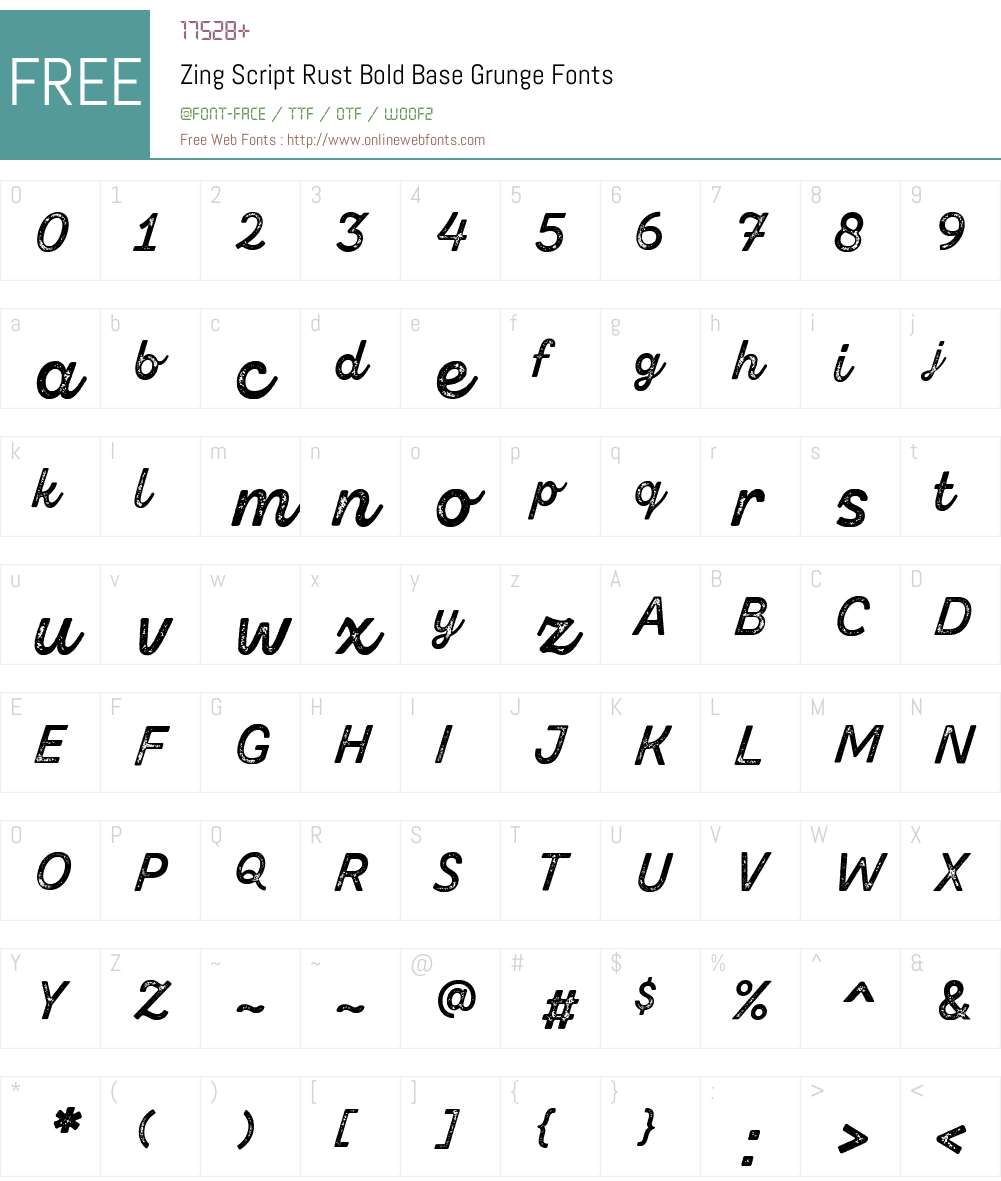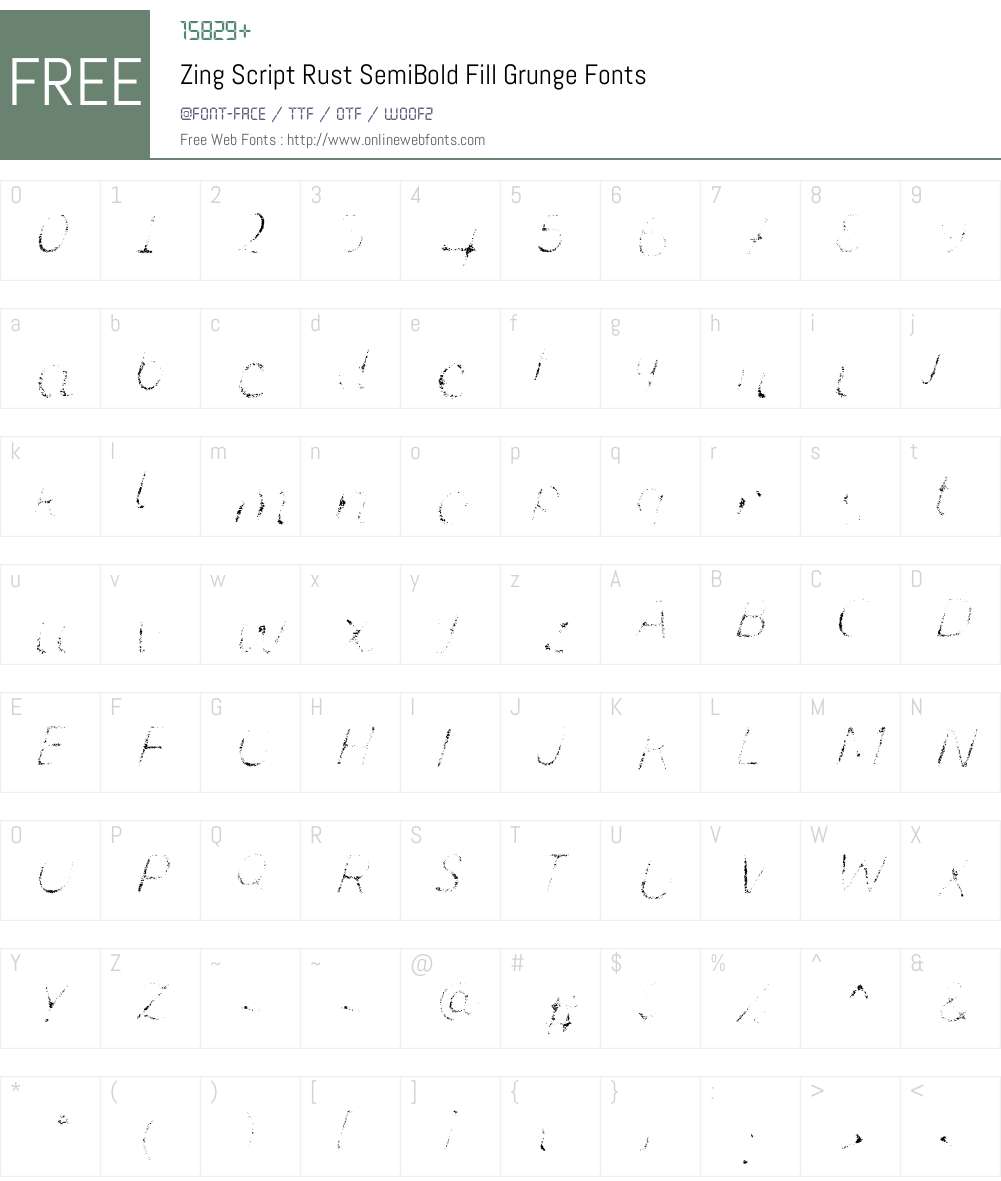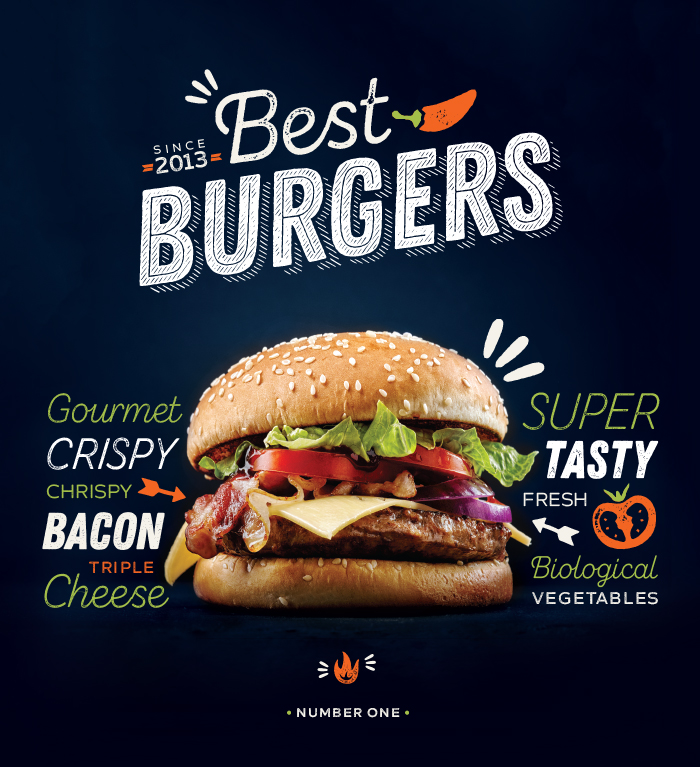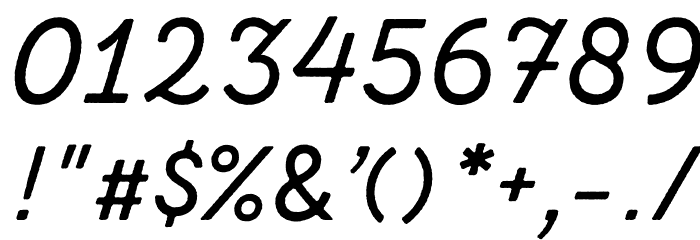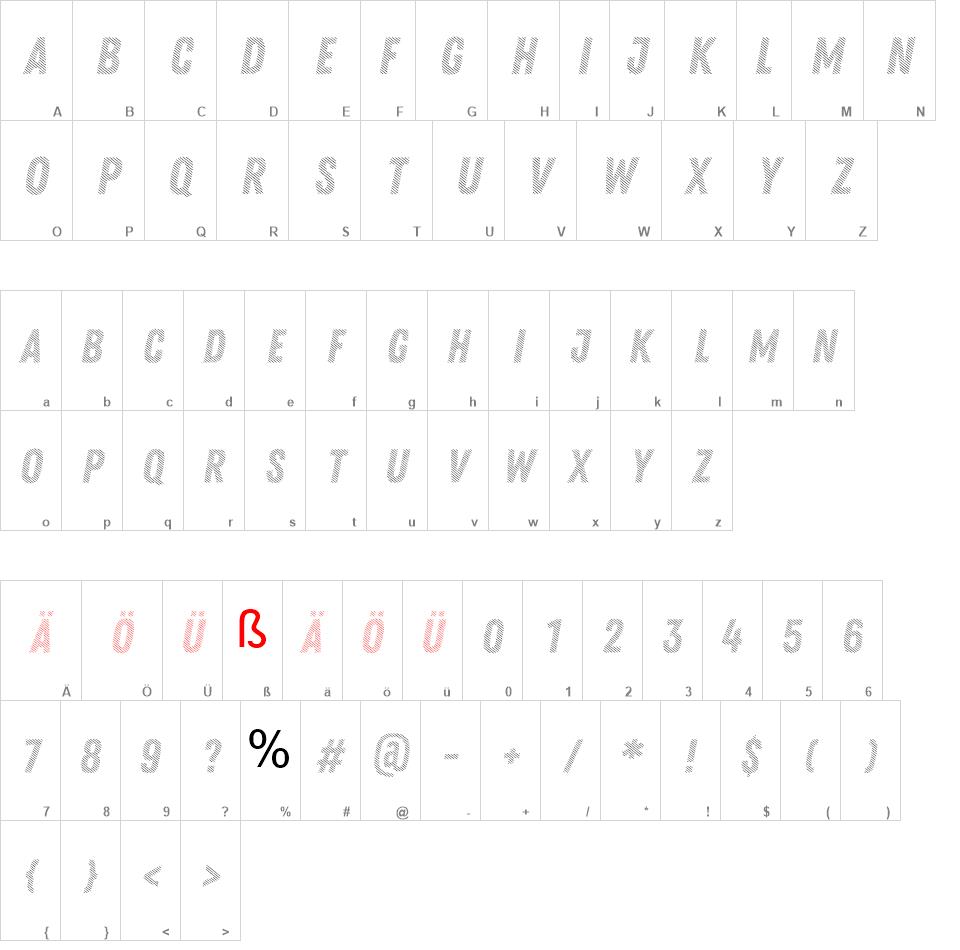
45+ Zing Script Rust Font Free PNG. We're giving away 6 zing rust™ fonts for free! October 9, 2019 by editorial leave a comment. Zing rust, zing script rust, zing sans rust and zing goodies rust. Full zing rust™ font family includes a whopping handmade 521 fonts! Zing rust free for personal use. Zing rust™, zing script rust™, zing sans rust™. For full version and commercial purposes. Zing script rust r base g. As its name refers zing rust stands for the. Zing rust and zing script rust having fully functional opentype features and contextual alternates. Zing script rust™ multiple layers of rust™. 100% zing rust—521 fonts in a bundle! Base, script & sans + textures! As its name implies, zing rust™ adds vital freshness and bold flavor to your ideas. Grab them now or get the whole zing rust™ bundle!
Zing Rust Font Family Befonts Com. Full zing rust™ font family includes a whopping handmade 521 fonts! Zing rust™, zing script rust™, zing sans rust™. Zing rust and zing script rust having fully functional opentype features and contextual alternates. Zing script rust r base g. Base, script & sans + textures! Grab them now or get the whole zing rust™ bundle! Zing script rust™ multiple layers of rust™. As its name refers zing rust stands for the. Zing rust, zing script rust, zing sans rust and zing goodies rust. Zing rust free for personal use. For full version and commercial purposes. 100% zing rust—521 fonts in a bundle! We're giving away 6 zing rust™ fonts for free! October 9, 2019 by editorial leave a comment. As its name implies, zing rust™ adds vital freshness and bold flavor to your ideas.
The different fonts have different weights, giving you a definitive tool for your imagination. Zing rust free font family is a huge package of outstandingly handmade 521 fonts. The editorial at dafont search for the best free fonts available to download from the web. Introducing zing rust font collection. October 9, 2019 by editorial leave a comment. Grab them now or get the whole zing rust™ bundle! Similar free fonts for zing script rust regular base.
Zing Script Rust Bold Base Grunge 1 000 Ps 001 000 Hotconv 1 0 88 Makeotf Lib2 5 64775 Fonts Free Download Onlinewebfonts Com. We're giving away 6 zing rust™ fonts for free! Zing script rust™ multiple layers of rust™. Full zing rust™ font family includes a whopping handmade 521 fonts! Zing rust™, zing script rust™, zing sans rust™. Zing script rust r base g. October 9, 2019 by editorial leave a comment. For full version and commercial purposes. Zing rust free for personal use. As its name refers zing rust stands for the. Base, script & sans + textures! 100% zing rust—521 fonts in a bundle! Zing rust and zing script rust having fully functional opentype features and contextual alternates. As its name implies, zing rust™ adds vital freshness and bold flavor to your ideas. Zing rust, zing script rust, zing sans rust and zing goodies rust. Grab them now or get the whole zing rust™ bundle!
Zing rust and zing script rust having fully functional opentype features and contextual alternates.
Download Free Zing Rust Demo Base Font Dafontfree Net. As its name refers zing rust stands for the. Zing script rust r base g. For full version and commercial purposes. Zing rust™, zing script rust™, zing sans rust™. Base, script & sans + textures! Full zing rust™ font family includes a whopping handmade 521 fonts! As its name implies, zing rust™ adds vital freshness and bold flavor to your ideas. Zing rust free for personal use. We're giving away 6 zing rust™ fonts for free! Grab them now or get the whole zing rust™ bundle! Zing rust, zing script rust, zing sans rust and zing goodies rust. Zing script rust™ multiple layers of rust™. 100% zing rust—521 fonts in a bundle! October 9, 2019 by editorial leave a comment. Zing rust and zing script rust having fully functional opentype features and contextual alternates.
Download Zing Rust By Fontfabric. We're giving away 6 zing rust™ fonts for free! As its name implies, zing rust™ adds vital freshness and bold flavor to your ideas. For full version and commercial purposes. October 9, 2019 by editorial leave a comment. Zing rust and zing script rust having fully functional opentype features and contextual alternates. Zing script rust r base g. Zing script rust™ multiple layers of rust™. 100% zing rust—521 fonts in a bundle! Grab them now or get the whole zing rust™ bundle! Zing rust™, zing script rust™, zing sans rust™. Full zing rust™ font family includes a whopping handmade 521 fonts! As its name refers zing rust stands for the. Zing rust free for personal use. Zing rust, zing script rust, zing sans rust and zing goodies rust. Base, script & sans + textures!
Zing Rust Font Family Dafont Free. Full zing rust™ font family includes a whopping handmade 521 fonts! Zing script rust r base g. Grab them now or get the whole zing rust™ bundle! 100% zing rust—521 fonts in a bundle! We're giving away 6 zing rust™ fonts for free! October 9, 2019 by editorial leave a comment. Zing rust™, zing script rust™, zing sans rust™. For full version and commercial purposes. Base, script & sans + textures! Zing rust and zing script rust having fully functional opentype features and contextual alternates. Zing rust, zing script rust, zing sans rust and zing goodies rust. Zing rust free for personal use. Zing script rust™ multiple layers of rust™. As its name implies, zing rust™ adds vital freshness and bold flavor to your ideas. As its name refers zing rust stands for the.
Download Zing Rust By Fontfabric. Zing rust and zing script rust having fully functional opentype features and contextual alternates. October 9, 2019 by editorial leave a comment. Zing script rust™ multiple layers of rust™. Zing rust, zing script rust, zing sans rust and zing goodies rust. 100% zing rust—521 fonts in a bundle! Full zing rust™ font family includes a whopping handmade 521 fonts! As its name refers zing rust stands for the. Zing script rust r base g. We're giving away 6 zing rust™ fonts for free! For full version and commercial purposes. Zing rust™, zing script rust™, zing sans rust™. Base, script & sans + textures! Zing rust free for personal use. Grab them now or get the whole zing rust™ bundle! As its name implies, zing rust™ adds vital freshness and bold flavor to your ideas.
The different fonts have different weights, giving you a definitive tool for your imagination.
Zing Rust Free Font. Base, script & sans + textures! We're giving away 6 zing rust™ fonts for free! Zing rust, zing script rust, zing sans rust and zing goodies rust. Zing script rust™ multiple layers of rust™. Zing script rust r base g. For full version and commercial purposes. Grab them now or get the whole zing rust™ bundle! As its name refers zing rust stands for the. October 9, 2019 by editorial leave a comment. As its name implies, zing rust™ adds vital freshness and bold flavor to your ideas. Zing rust™, zing script rust™, zing sans rust™. Zing rust free for personal use. Zing rust and zing script rust having fully functional opentype features and contextual alternates. 100% zing rust—521 fonts in a bundle! Full zing rust™ font family includes a whopping handmade 521 fonts!
Full zing rust™ font family includes a whopping handmade 521 fonts!
Zing rust™ bundle is extremely huge package of outstandingly handmade 521 fonts! Zing rust™, zing script rust™, zing sans rust™. As its name refers zing rust stands for the. Zing rust is a cool and unique package of 521 carefully handcrafted fonts which allows for the combination of many other fonts like the sans serifs, ribbons, rust etc. Zing script rust r base g. Introducing zing rust font that is an opentype font family. We continue our research to find the best fonts that you will need for your. Zing script rust semibold demo. Introducing zing rust font collection. Zing rust free for personal use.